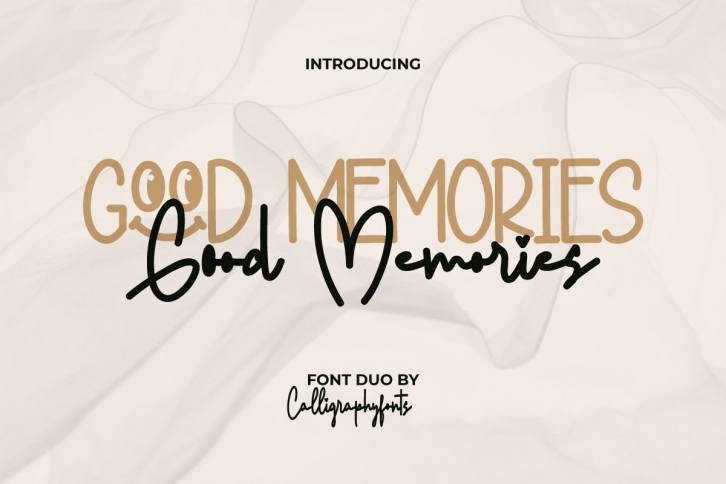
Good Memories is a beautiful font that was designed by Calligraphy Fonts. It's a great choice for designers and creatives who need such a font. It was released on December 8, 2021 and the file size is 4.57 MB. Good Memories may give a more youthful, expressive and casual look to your project. It is a very beautiful, refined, elegant, and high-quality font.